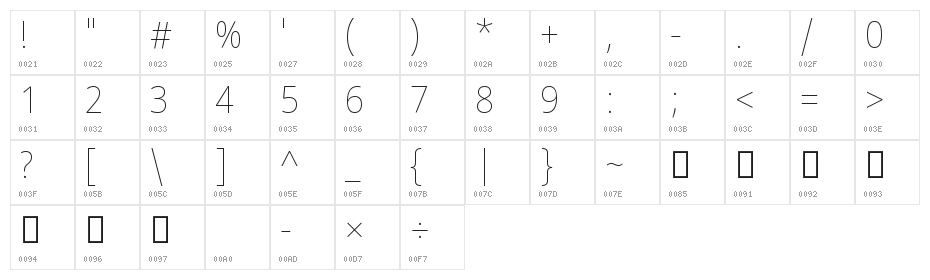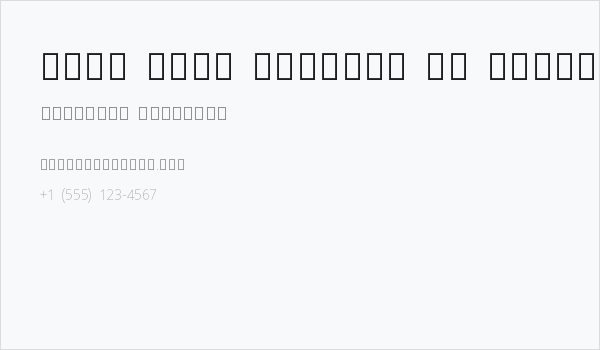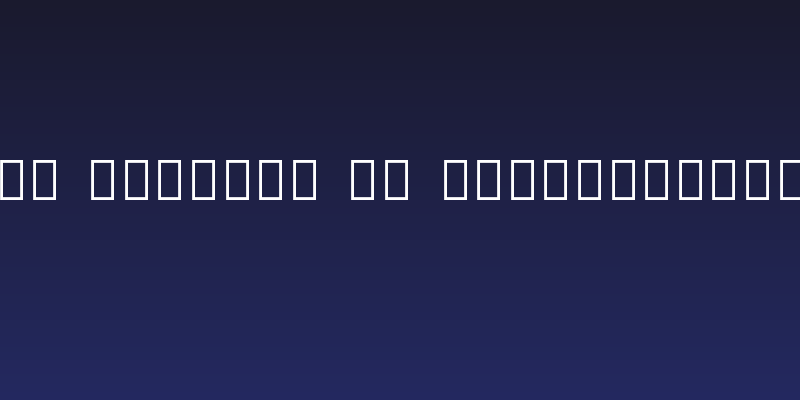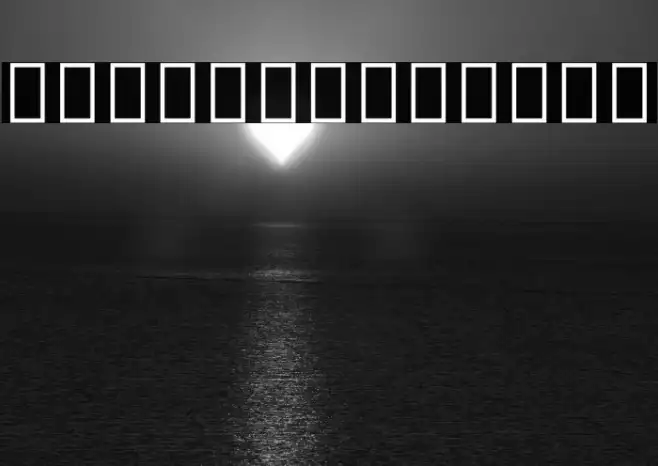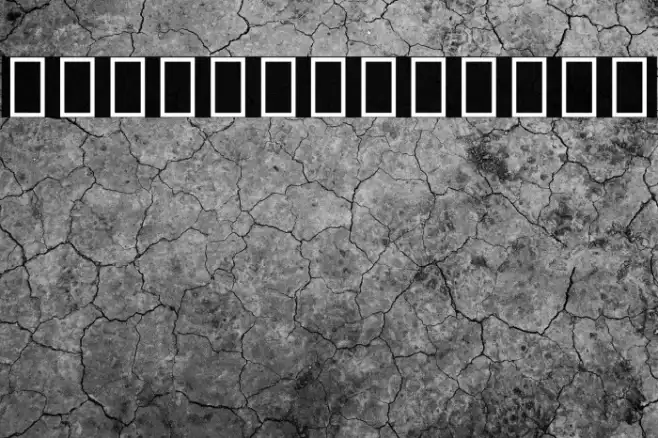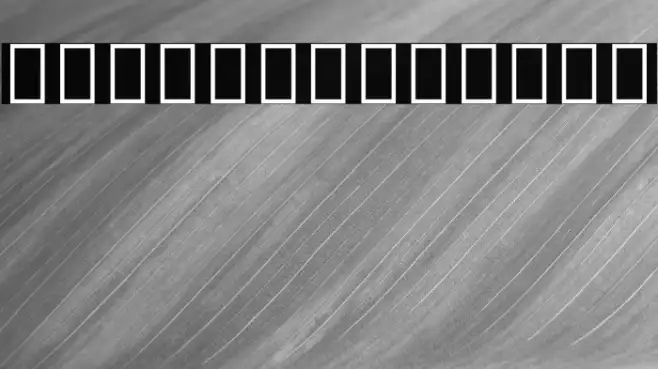
Noto Sans Sinhala UI SemiCondensed Thin Font
Noto Sans Sinhala UI SemiCondensed Thin Description
This font is a contemporary sans-serif typeface characterized by its clean and minimalist design. It features a semi-condensed structure, which allows for efficient use of space while maintaining readability. The thin weight gives it an elegant and modern appearance, making it suitable for digital interfaces and print media. The characters are well-proportioned with a consistent stroke width, contributing to its sleek and professional look. The font includes a comprehensive set of numerals and punctuation marks, ensuring versatility across various applications.
| Use Case | Headlines, Body text, User Interfaces |
| Proposed Projects | Ideal for user interfaces, websites, mobile apps, and print materials where a clean and modern aesthetic is desired. |